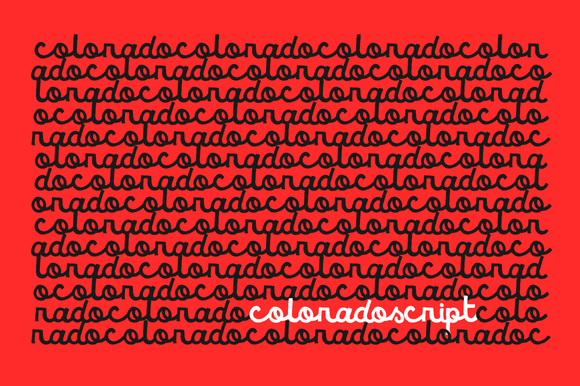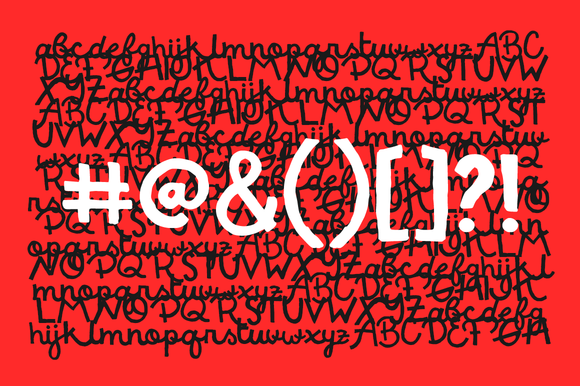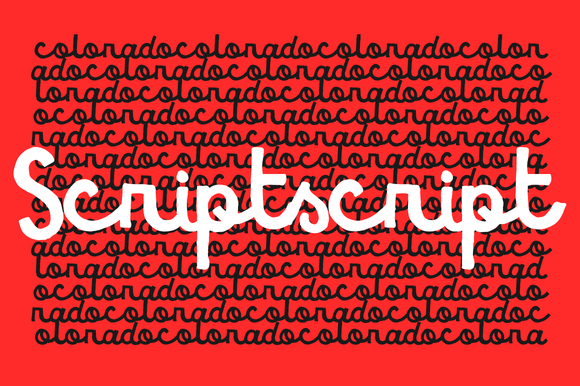
Colorado Font
About Colorado Font
Colorado is a new and amazing script font. It can be used for various purposes such as headings, logos, invitations, t-shirt designs, greeting cards, posters, labels, book covers, brochures, and any other design you want to give a vintage look!